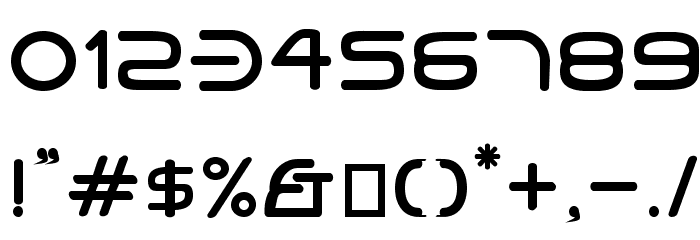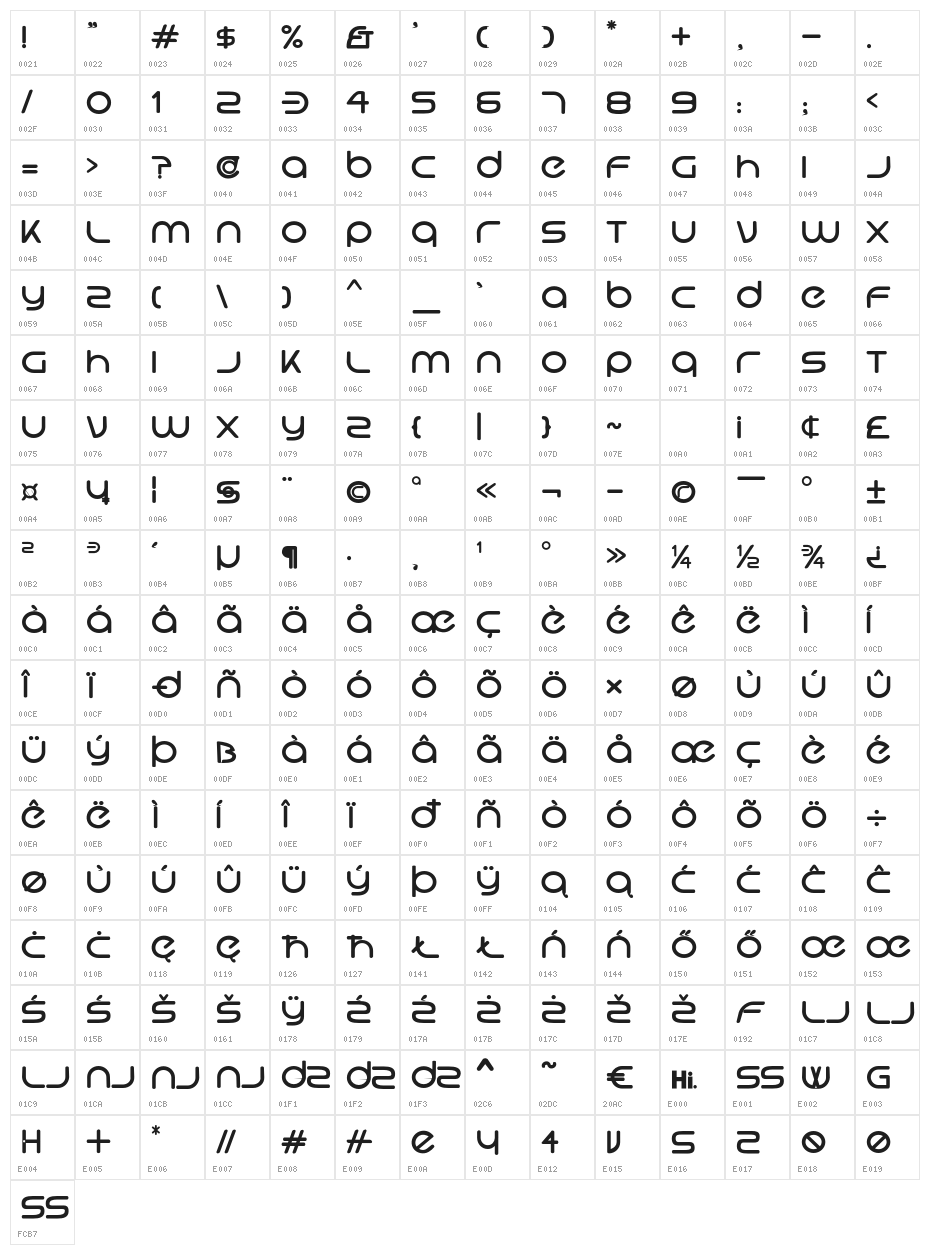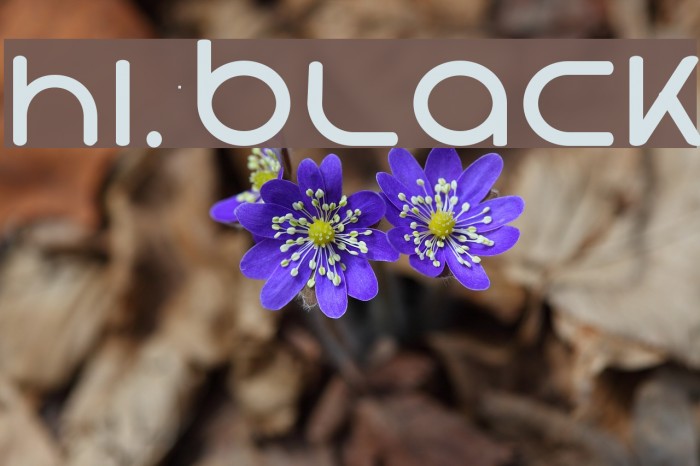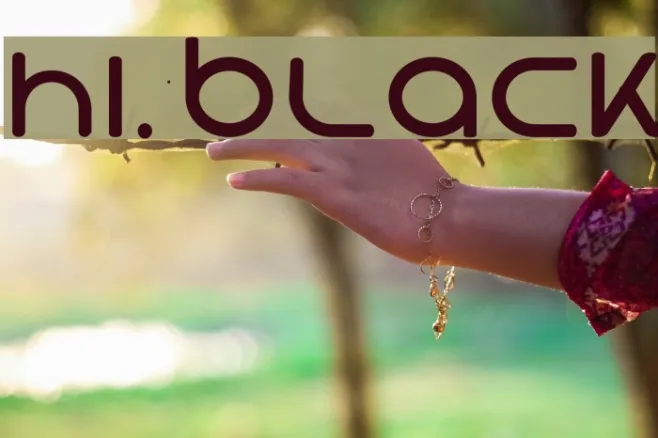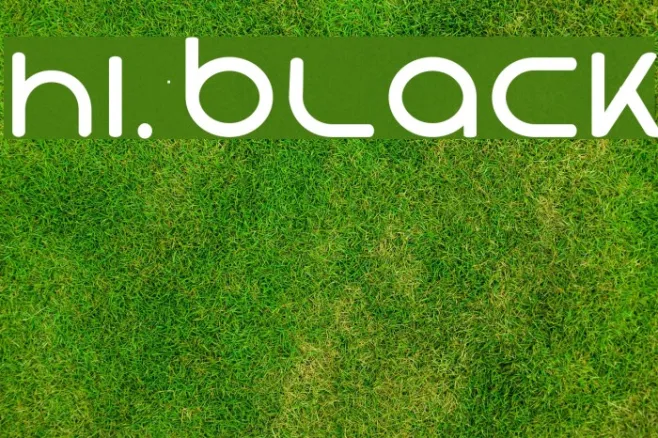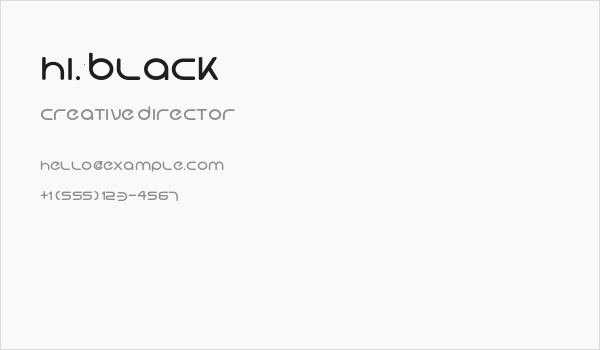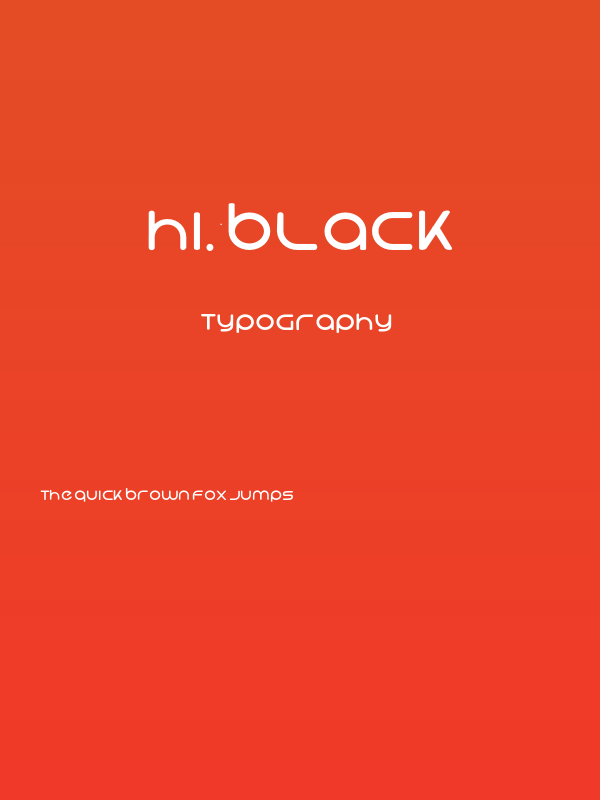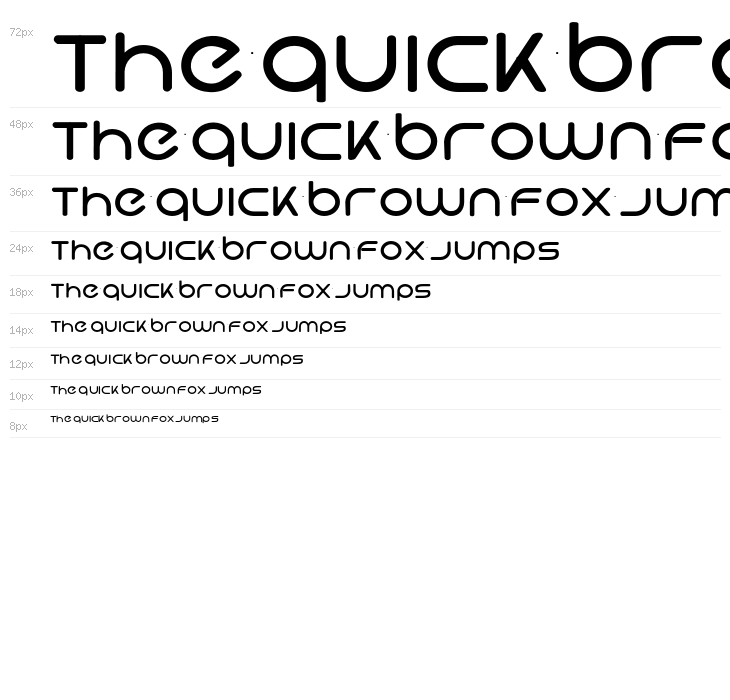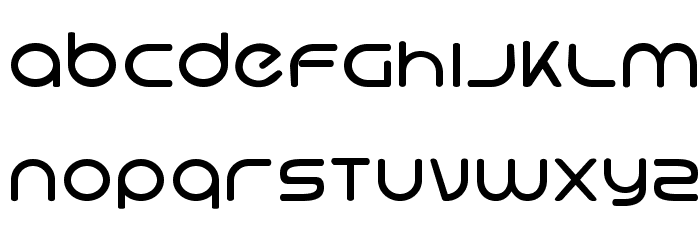
Hi. Black Font
Hi. Black Description
This font features a modern, geometric design with rounded edges and a clean, futuristic appearance. The characters are uniform in height, with a consistent stroke width that gives it a sleek and contemporary look. The rounded terminals and smooth curves create a friendly and approachable feel, while maintaining a sense of precision and clarity. The font is highly legible, making it suitable for a variety of applications. Its unique style is both eye-catching and versatile, allowing it to stand out in both digital and print media. The numerals and special characters are designed to complement the alphabet, ensuring a cohesive and harmonious appearance across all text elements.
| Proposed Projects | Ideal for tech branding, modern advertising, digital interfaces, and futuristic designs. |